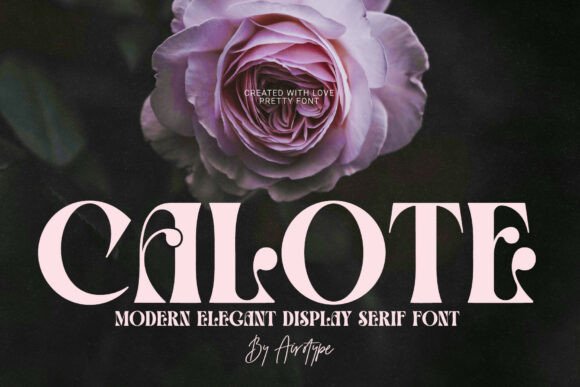
Introducing Calote Font: Elevate Your Design with Elegance and Luxury
In the world of typography, fonts play a crucial role in conveying the tone and aesthetic of a design. For those seeking a modern and stylish serif font that exudes classy, beauty, and luxury, look no further than Calote Font. This elegant font is designed to add a touch of sophistication to any project, making it perfect for designs that require a modern vintage flair.
What Makes Calote Font Stand Out?
Calote Font is a modern serif font that boasts a unique contrast of strokes, which gives it a pretty and elegant vibe. The font’s design is characterized by its refined lines, subtle curves, and precise letter spacing, making it an excellent choice for designs that demand attention to detail. Whether you’re working on a logo, wedding invitation, or branding project, Calote Font is sure to impress.
Key Features of Calote Font
- Modern and Stylish Design: Calote Font features a sleek and contemporary design that is sure to elevate your projects.
- Elegant Serif Details: The font’s serif details add a touch of sophistication and luxury to any design.
- High Contrast of Strokes: The contrast of the strokes in Calote Font gives it a pretty and elegant vibe, making it perfect for designs that require a modern vintage touch.
- Versatile and Flexible: Calote Font can be used for a wide range of projects, including logos, crafting, wedding invitations, branding, signage, stickers, sublimation, quotes, and more.
Uses of Calote Font
Calote Font is an incredibly versatile font that can be used for various design projects. Here are some of the ways you can utilize this elegant font:
1. Logos and Branding
Calote Font is perfect for creating logos and branding materials that require a touch of elegance and sophistication. The font’s modern and stylish design makes it an excellent choice for businesses that want to establish a strong brand identity.
2. Wedding Invitations and Stationery
The elegant design of Calote Font makes it an excellent choice for wedding invitations, stationery, and other paper goods. The font’s refined lines and subtle curves give it a romantic and sophisticated feel that’s perfect for special occasions.
3. Crafting and DIY Projects
Calote Font is also suitable for crafting and DIY projects, such as handmade cards, gift tags, and other paper crafts. The font’s elegant design adds a touch of sophistication to any craft project.
4. Signage and Advertising
The high contrast of strokes in Calote Font makes it an excellent choice for signage and advertising projects. The font’s elegant design is sure to grab attention and make your message stand out.
Why Choose Calote Font?
With so many fonts available, why should you choose Calote Font for your design projects? Here are some reasons why Calote Font stands out:
1. Unique and Elegant Design
Calote Font features a unique and elegant design that is sure to elevate your projects. The font’s refined lines, subtle curves, and precise letter spacing make it an excellent choice for designs that demand attention to detail.
2. Highly Versatile
Calote Font is an incredibly versatile font that can be used for a wide range of projects. Whether you’re working on a logo, wedding invitation, or branding project, Calote Font is sure to impress.
3. Easy to Read
Despite its elegant design, Calote Font is easy to read, making it perfect for body text and other applications where readability is crucial.
In conclusion, Calote Font is a modern and stylish serif font that is perfect for designs that require a touch of elegance and sophistication. With its unique and elegant design, high contrast of strokes, and versatility, Calote Font is an excellent choice for a wide range of projects. Whether you’re a designer, crafty DIY enthusiast, or business owner, Calote Font is sure to elevate your designs and make them stand out.